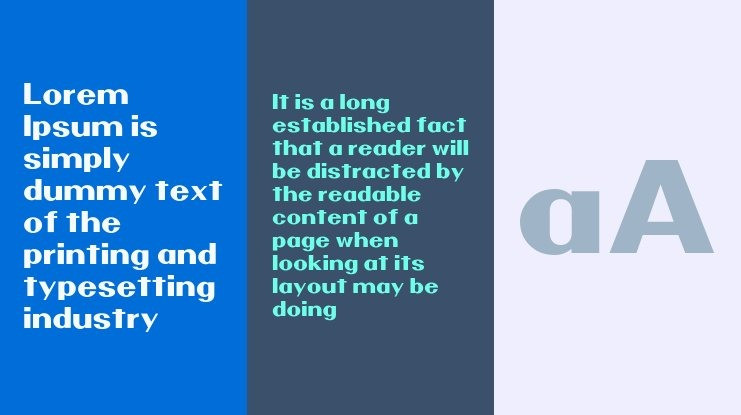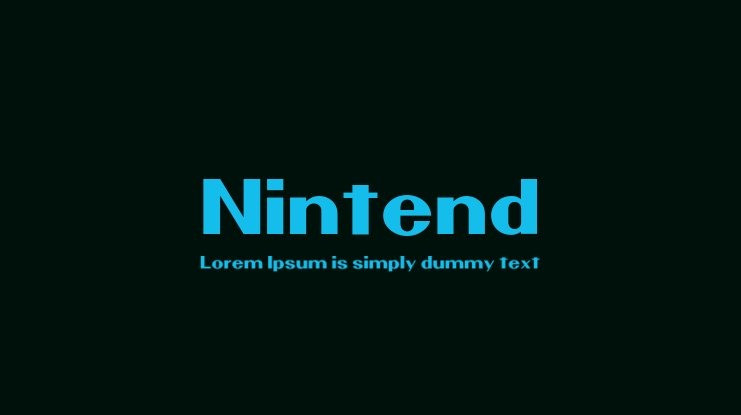
Nintend Font
Used on the Nintendo logo. Nintendo Co., Ltd. is a Japanese multinational consumer electronics and video game company headquartered in Kyoto. The company was founded in 1889 as Nintendo Karuta by craftsman Fusajiro Yamauchi and originally produced handmade hanafuda playing cards. After venturing into various lines of business during the 1960s and acquiring a legal status as a public company under the current company name, Nintendo distributed its first video game console, the Color TV-Game, in 1977. It gained international recognition with the release of the Nintendo Entertainment System in 1985.